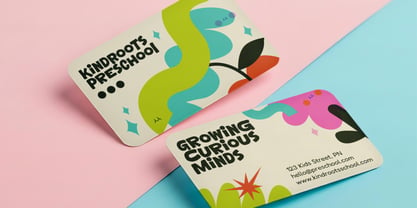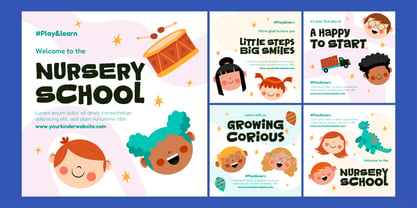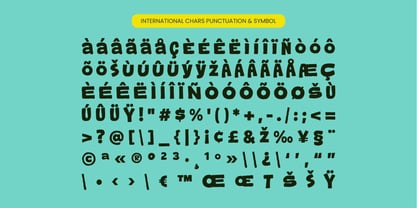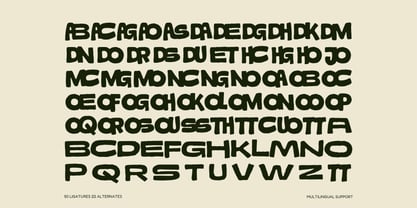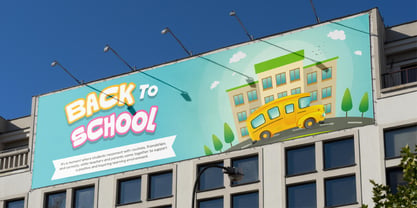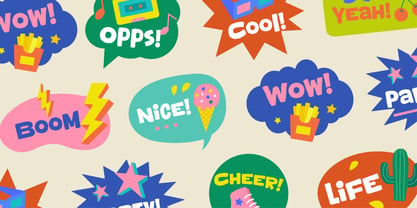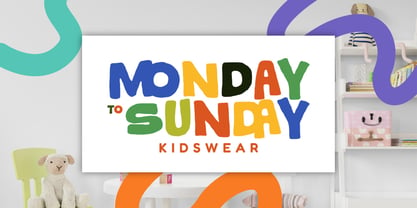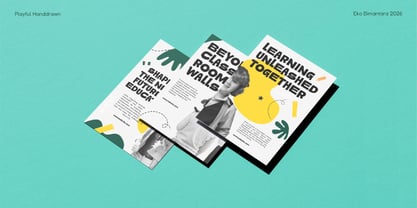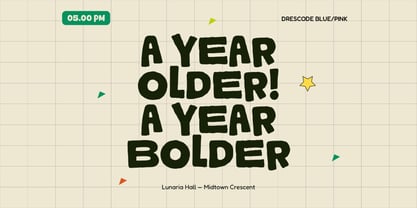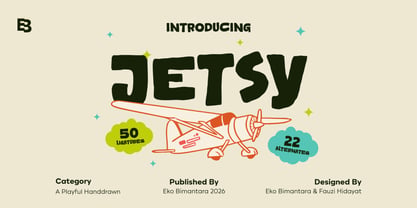
Jetsy
by Eko Bimantara
The Jetsy Font Family was designed by Eko Bimantara and published by Eko Bimantara. Jetsy contains 1 styles. More about this family
Jetsy is a fun, bold, and playful display font with a rough outline texture and whimsical letter proportions that bring lively character to every word. Its unique ligatures add unexpected charm and movement, making the typeface feel expressive and full of personality. Designed to stand out, Jetsy is perfect for branding, kids-themed designs, food and drink projects, headers, titling, and a wide range of creative needs where an energetic and joyful typographic voice is required.
About Eko Bimantara
Eko Bimantara is a type designer from Indonesia. Always has an intention to creating fonts that not only look great but also perform across a wide range of mediums and also across wide range of theme. The goal is to give designers the tools to make their projects that speaks a lot with various expression. Eko Bimantara’s fonts are featured in everything from corporate identities to street art posters, and have numerous ideas and concept ready to expand for fresh fonts for years further.